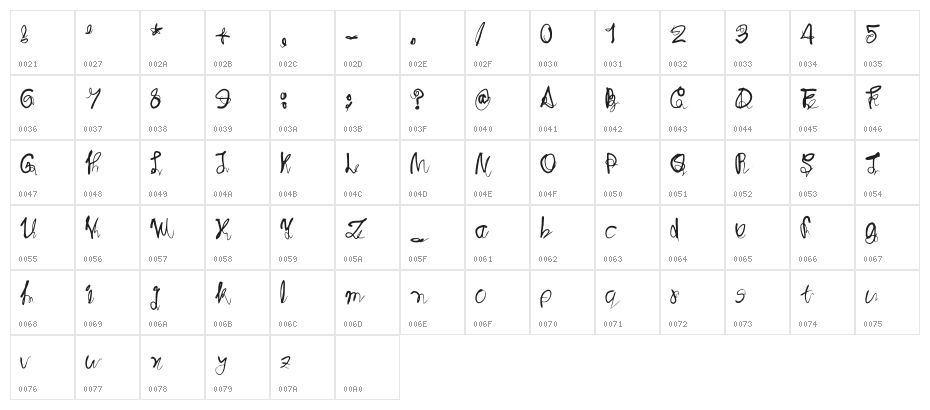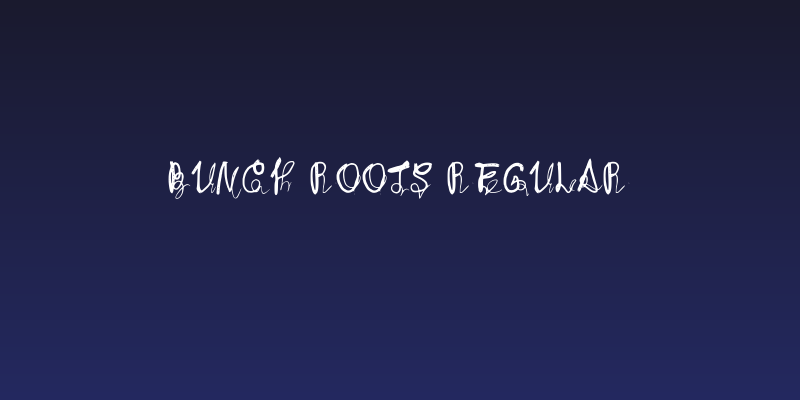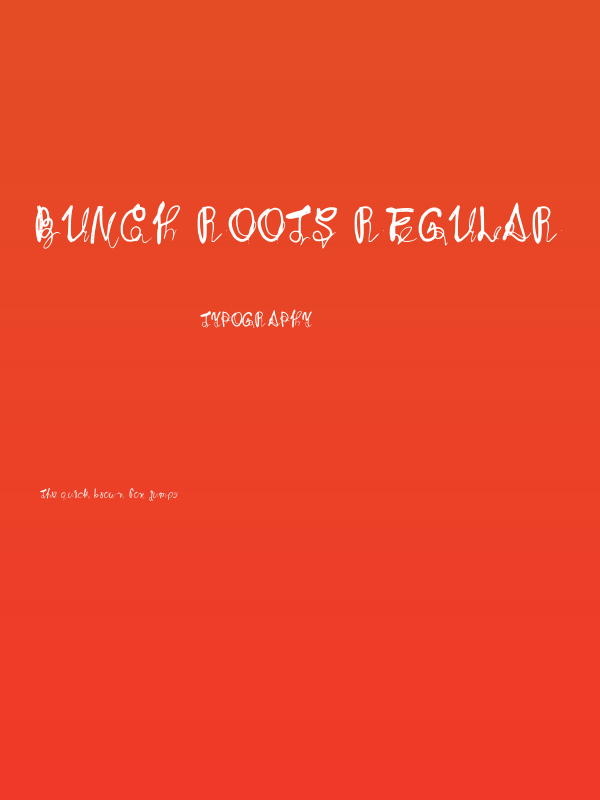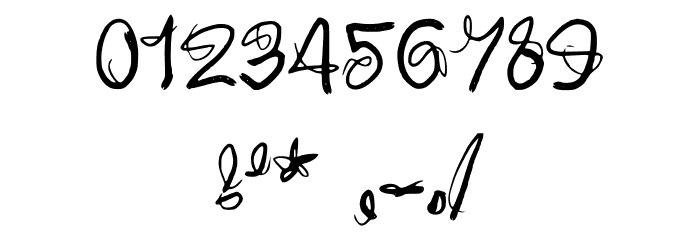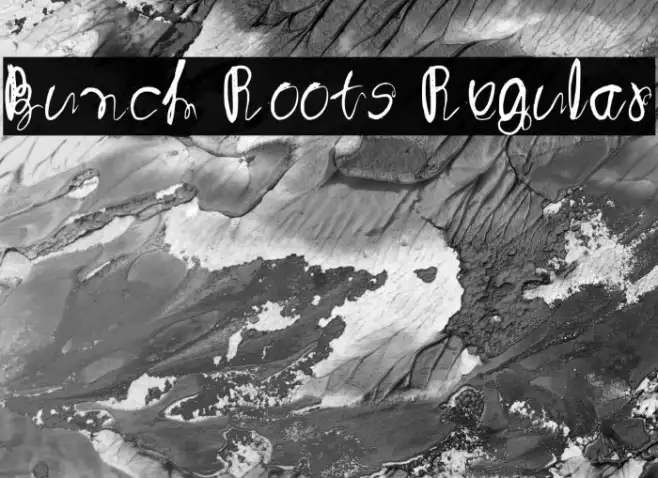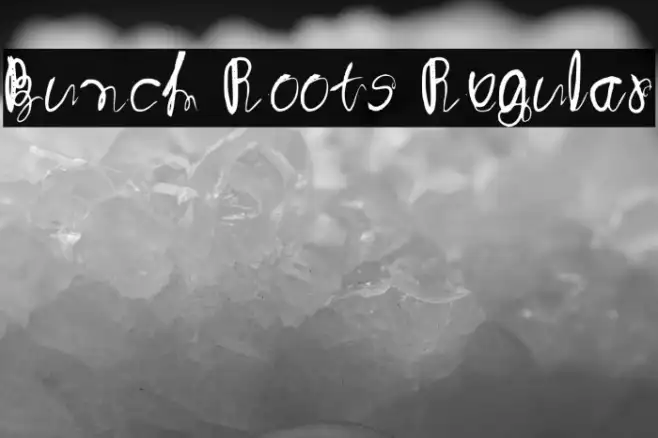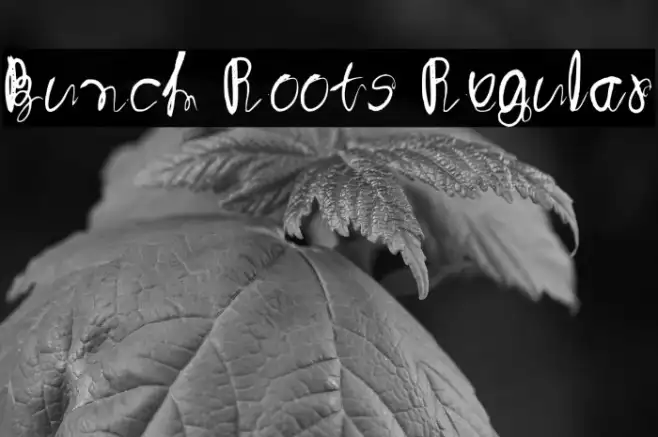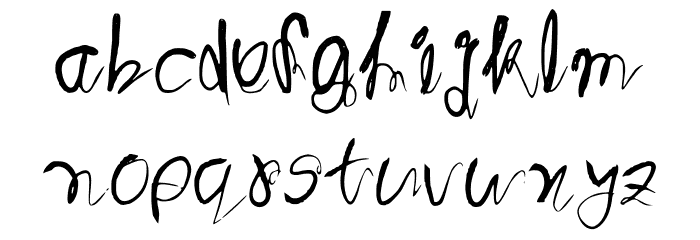
Bunch Roots Regular Font
Bunch Roots Regular Description
This font exhibits a highly decorative and artistic style, characterized by its intricate and swirling letterforms. The uppercase and lowercase letters are designed with a sense of fluidity and motion, giving the impression of hand-drawn calligraphy. The strokes vary in thickness, creating a dynamic contrast that adds to the font's expressive nature. The numbers and special characters maintain this whimsical style, ensuring consistency across all glyphs. This font's unique and elaborate design makes it stand out, making it suitable for creative and artistic projects.
| Proposed Projects | Ideal for artistic projects, invitations, posters, and branding that require a creative and expressive touch. |